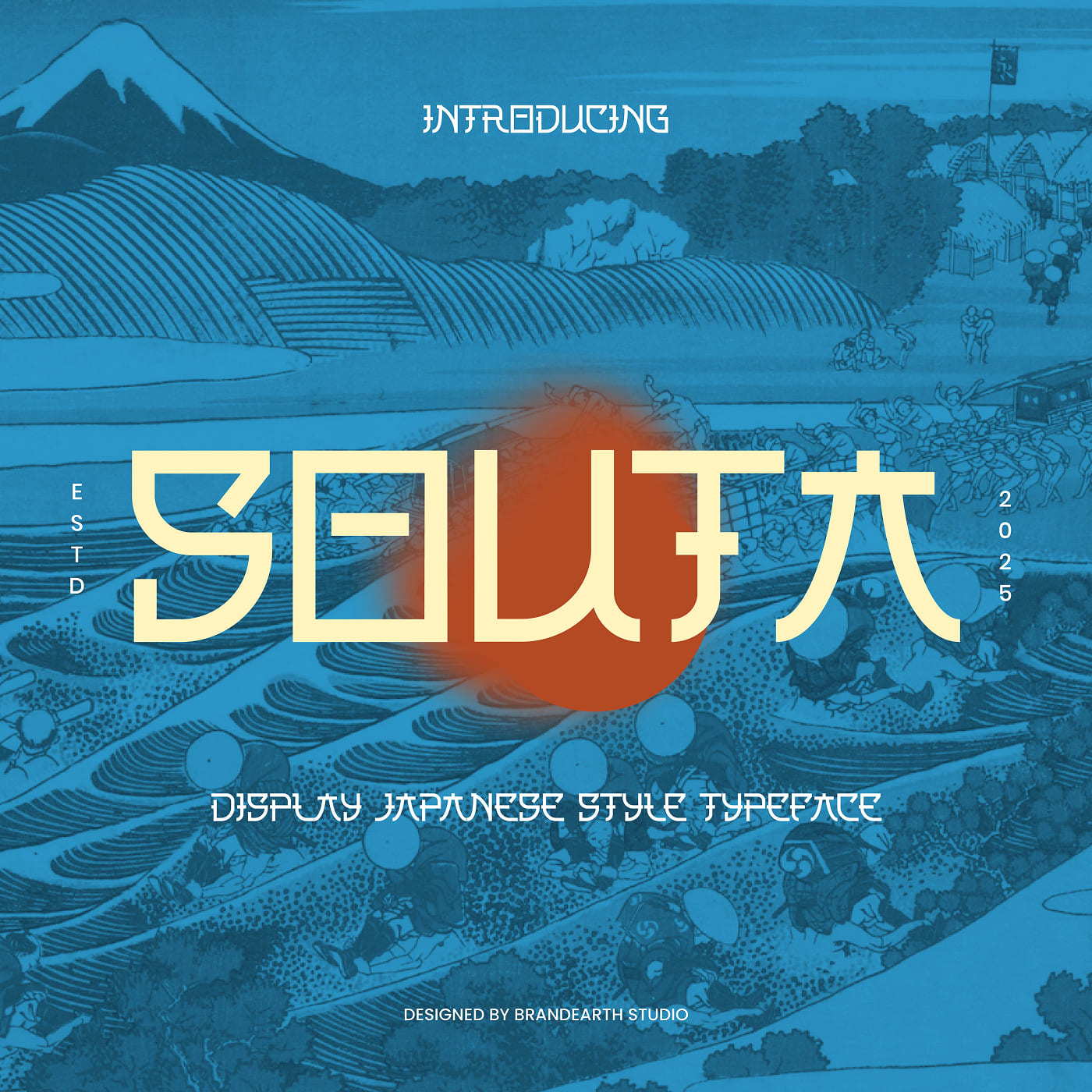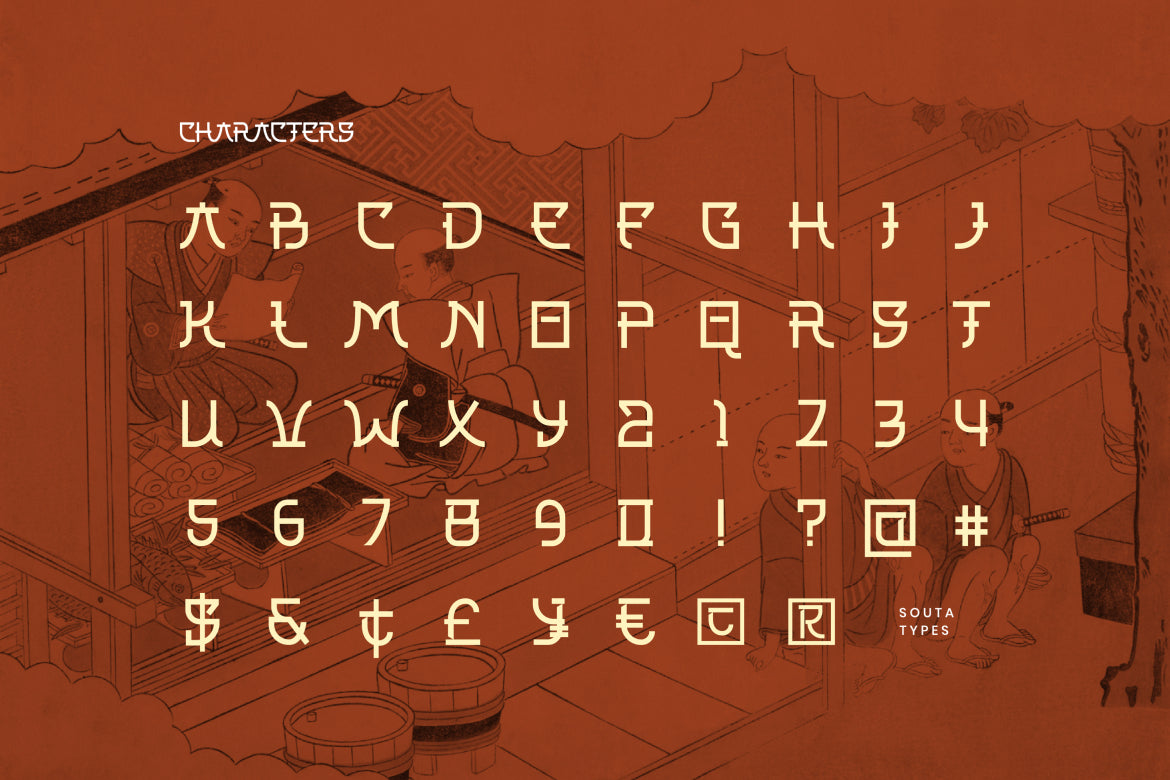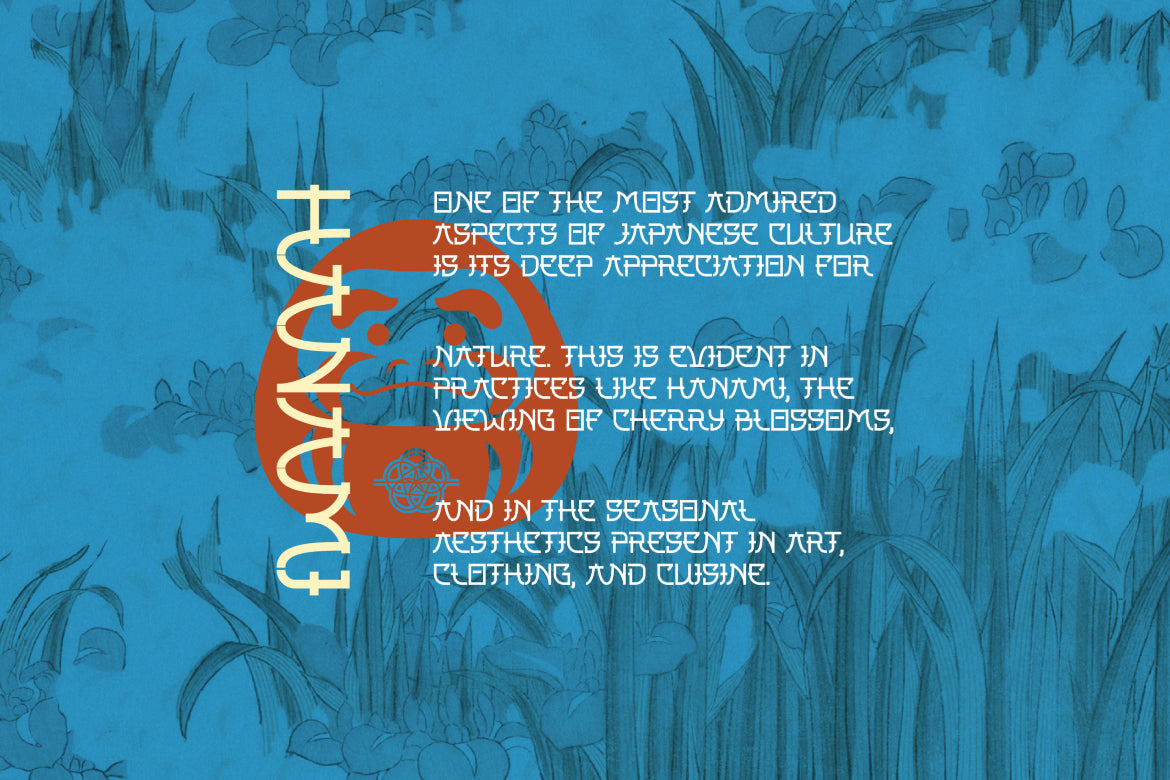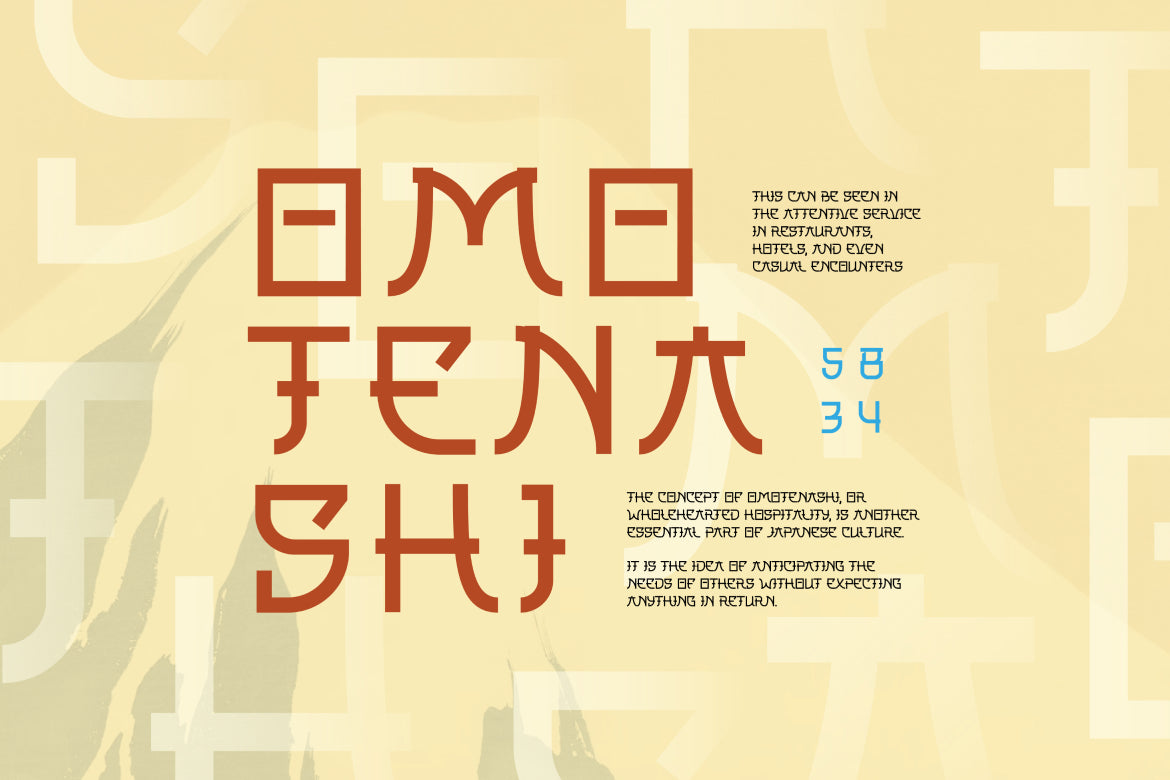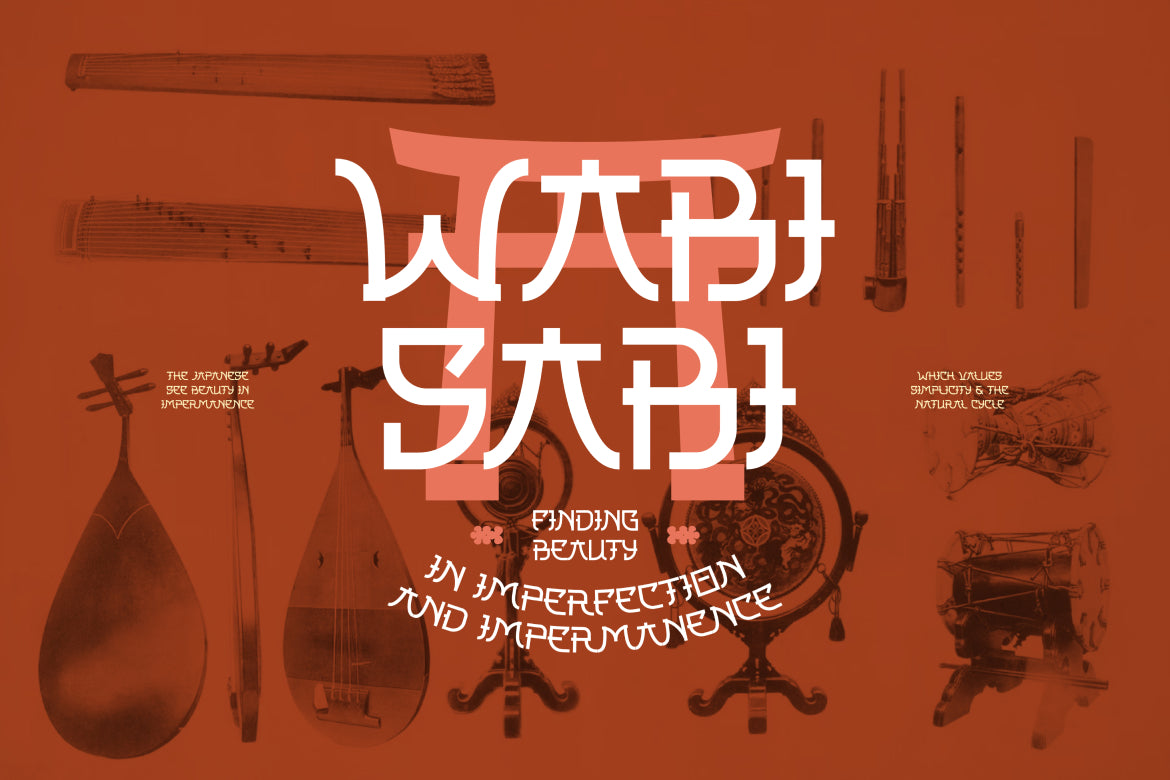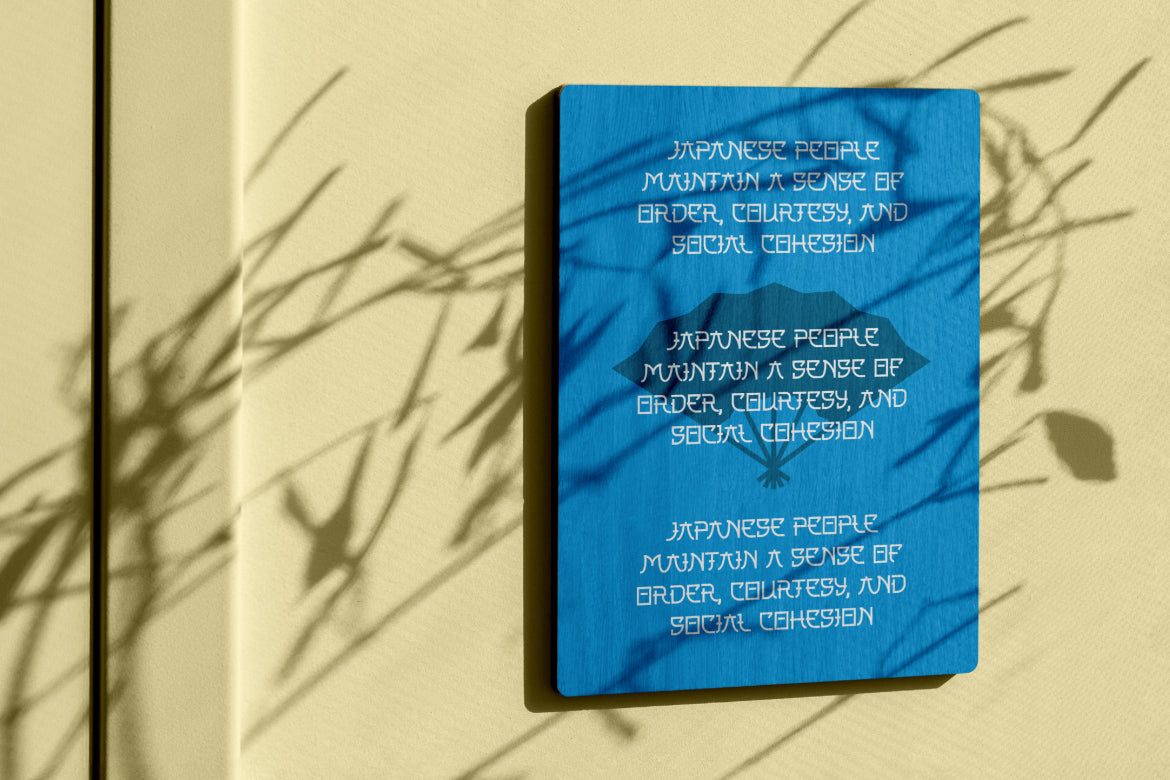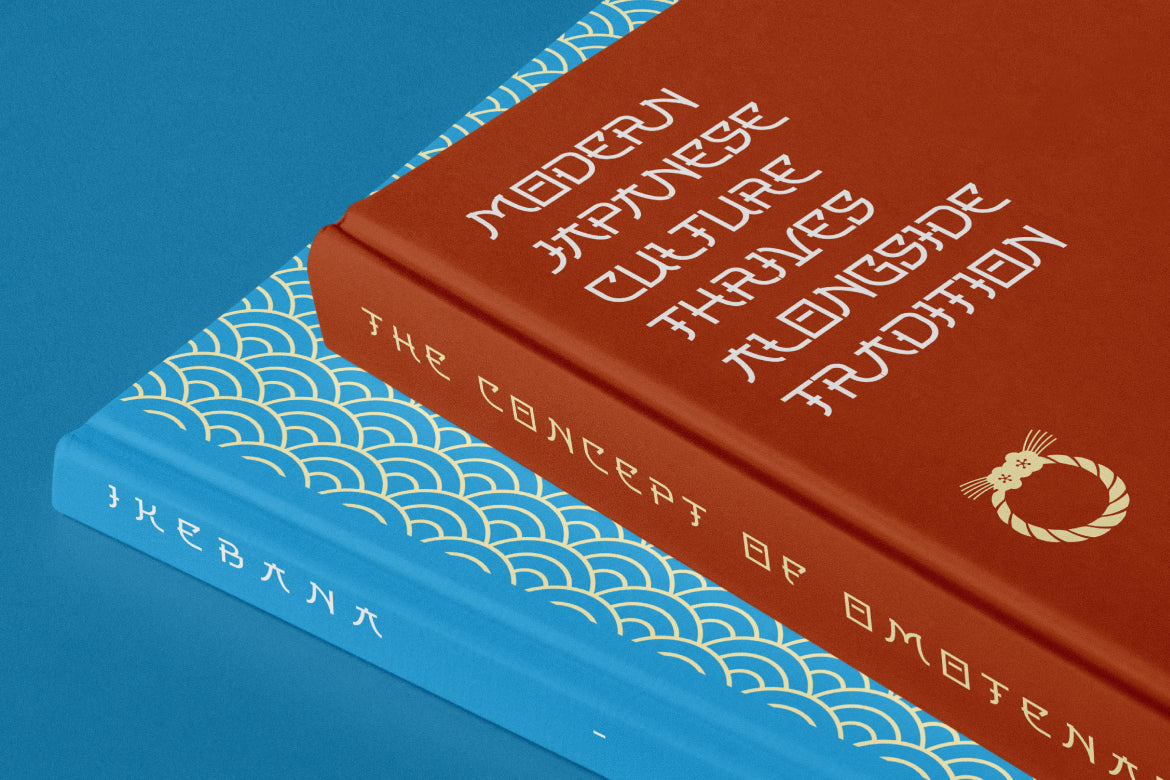
Souta Display Japanese Style Font
Souta is a futuristic display typeface deeply inspired by the modular aesthetics of Japanese katakana mixed with modern sci-fi geometry. Its energy is bold, visionary, and structured perfect for designs seeking to fuse traditional Asian flair with a futuristic design ethos. This font is designed to make a powerful impression in modern markets such as gaming interfaces, film posters, tech startups, and cultural exhibitions. It thrives especially well in conceptual design work—branding for digital platforms, speculative fiction covers, anime merchandise, techwear packaging, or cyber-themed social media visuals.
Souta is a display typeface combining modular Japanese katakana-inspired shapes with geometric sci-fi design elements. It includes uppercase and lowercase characters, numerals, and punctuation, available in TTF, OTF, and WOFF formats.